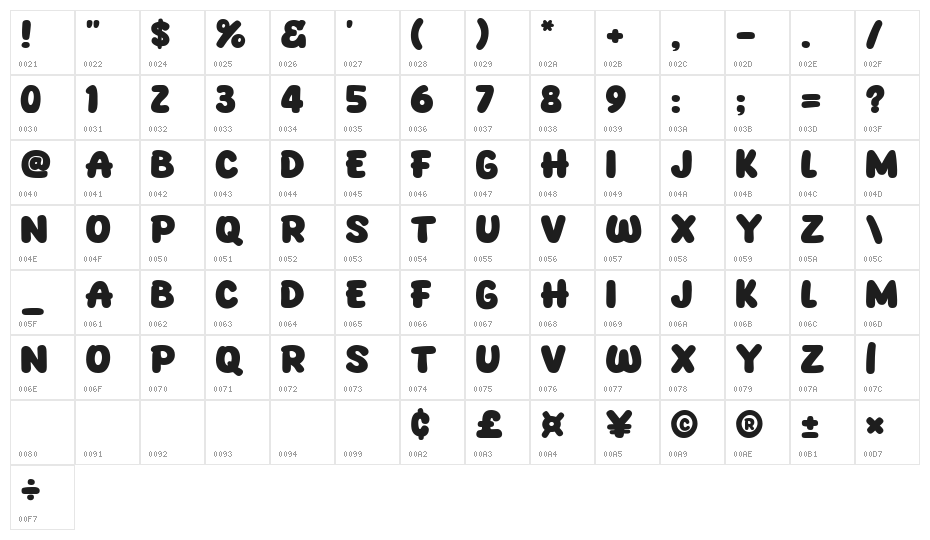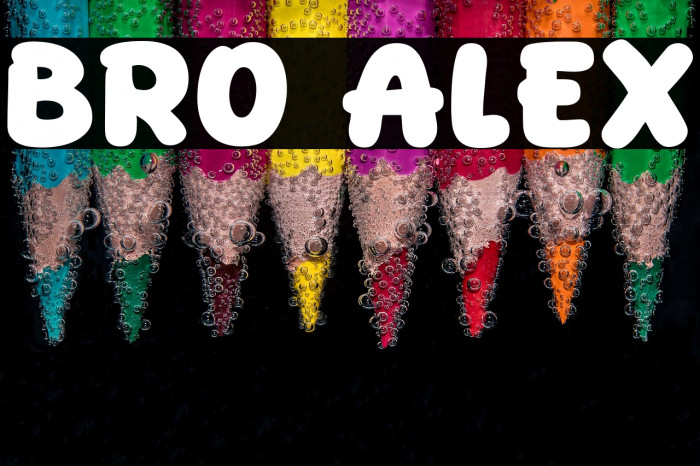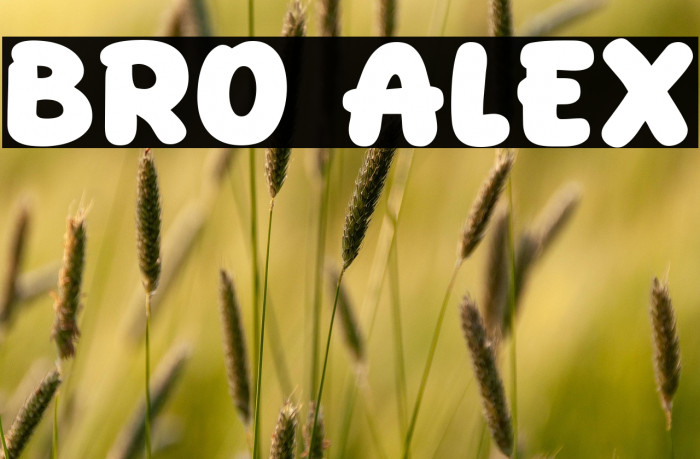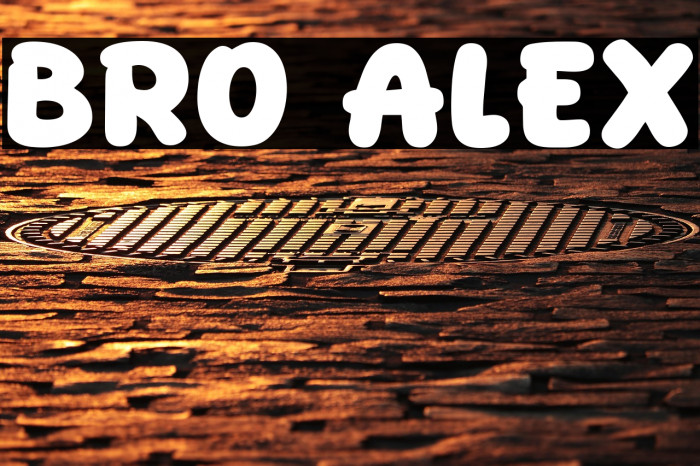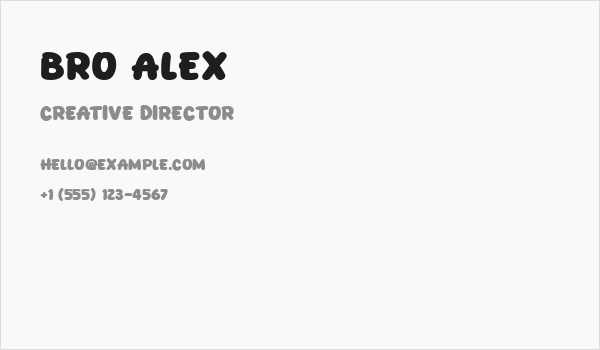
Bro Alex Font
Bro Alex Description
This playful and bold font features thick, rounded characters that exude a sense of fun and whimsy. The letters are uniformly bold with a consistent stroke width, giving them a strong presence. The rounded edges and bubbly appearance make it ideal for projects that require a friendly and approachable feel. The numbers and special characters maintain the same playful style, ensuring consistency across all text elements. This font is perfect for capturing attention and conveying a sense of joy and creativity.
| Overall Style | Playful, Fun, Whimsical |
| Proposed Projects | Ideal for children's books, playful branding, party invitations, and casual posters. |